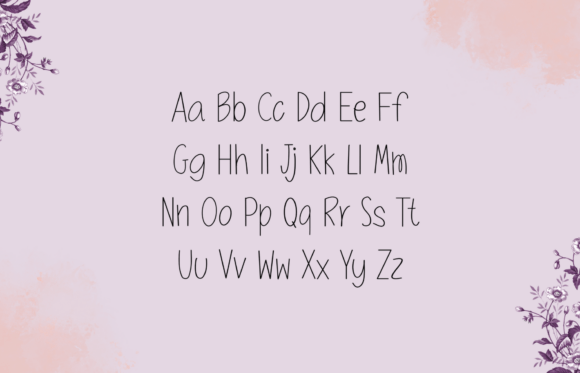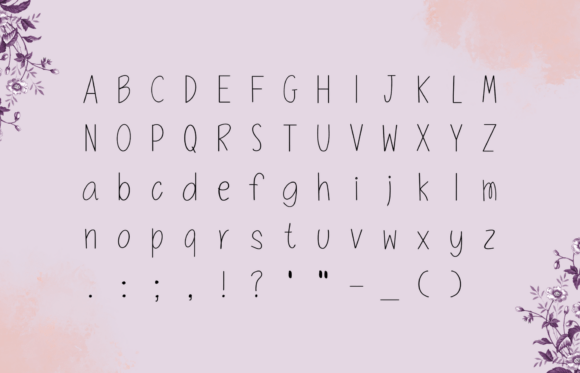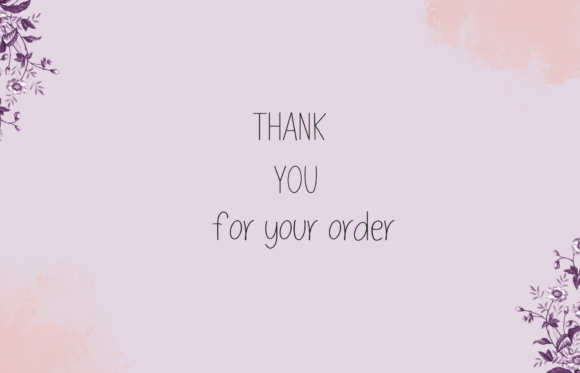
Aster Font: The Sweet and Friendly Handwritten Display Font
Are you looking for a font that adds a fun and playful touch to your designs? Look no further than Aster Font! This sweet and friendly handwritten display font is perfect for crafts, digital design, presentations, and a wide range of other creative projects. In this article, we’ll explore the features and benefits of Aster Font, and show you how it can elevate your designs to the next level.
What is Aster Font?
Aster Font is a modern handwritten display font that exudes a sense of friendliness and approachability. Its cute and fun design makes it ideal for projects that require a playful touch, such as:
- Crafts: Add a personal touch to your handmade crafts, such as cards, gift tags, and scrapbook pages.
- Digital design: Use Aster Font to create engaging social media graphics, blog posts, and website headers.
- Presentations: Add a fun and creative element to your presentations, making them more engaging and memorable.
- Wedding invitations and cards: Make your special occasion stationery truly unique with Aster Font.
Features of Aster Font
Aster Font has several features that make it a versatile and practical choice for designers and crafters:
- Handwritten style: Aster Font has a natural, handwritten feel that adds a personal touch to your designs.
- Display font: Its bold and playful design makes it perfect for headlines, titles, and emphasis text.
- Cute and fun: Aster Font is designed to bring a smile to your face, making it ideal for projects that require a lighthearted touch.
- Easy to read: Despite its playful design, Aster Font is easy to read, making it suitable for body text as well.
Use Cases for Aster Font
Aster Font is an incredibly versatile font that can be used in a wide range of projects, including:
- Comic book style designs: Add a playful touch to your comic book art, making it more engaging and fun.
- Game online: Use Aster Font to create engaging game titles, menus, and UI elements.
- Love shirts: Design cute and playful t-shirts, mugs, and other merchandise with Aster Font.
- Posters: Create eye-catching posters for events, promotions, and advertising campaigns.
- Movie titles: Add a touch of whimsy to your movie titles, making them more memorable and engaging.
- School projects: Aster Font is ideal for use in school projects, making learning more fun and engaging for both teachers and students.
Why Choose Aster Font?
With so many fonts available, why choose Aster Font? Here are just a few reasons:
- Unique design: Aster Font has a unique and distinctive design that sets it apart from other fonts.
- Versatile: Aster Font can be used in a wide range of projects, from digital design to crafts and presentations.
- Fun and playful: Aster Font adds a fun and playful touch to your designs, making them more engaging and memorable.
| Author | Beer Design |
In conclusion, Aster Font is a sweet and friendly handwritten display font that’s perfect for adding a fun and playful touch to your designs. With its cute and fun design, ease of use, and versatility, Aster Font is an excellent choice for designers and crafters looking to elevate their projects to the next level. Whether you’re working on a craft project, digital design, or presentation, Aster Font is sure to bring a smile to your face and make your designs more engaging and memorable.